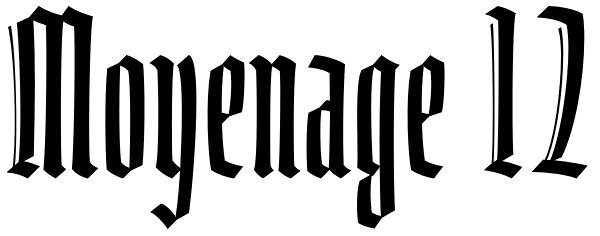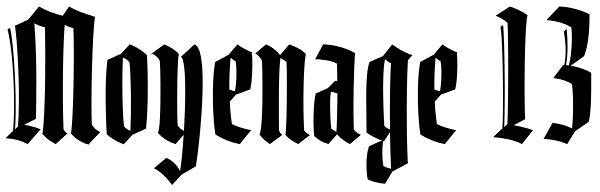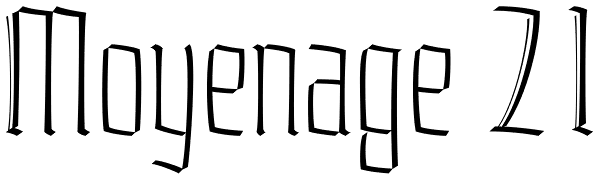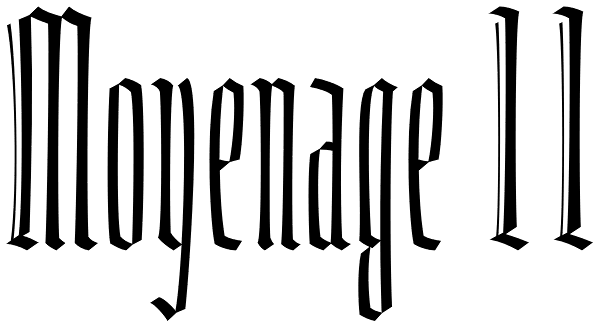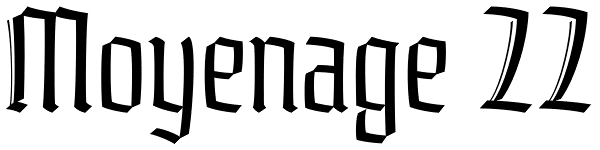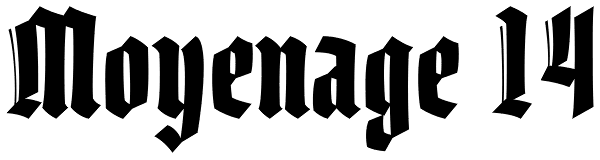
Moyenage
Blackletter typefaces follow certain fixed rules, both in respect to their forms and to the orthography. Possibly, they were a reaction to the half-developed Carolingian minuscule which was soon to end in the Latin script. Narrow, ordered script was...